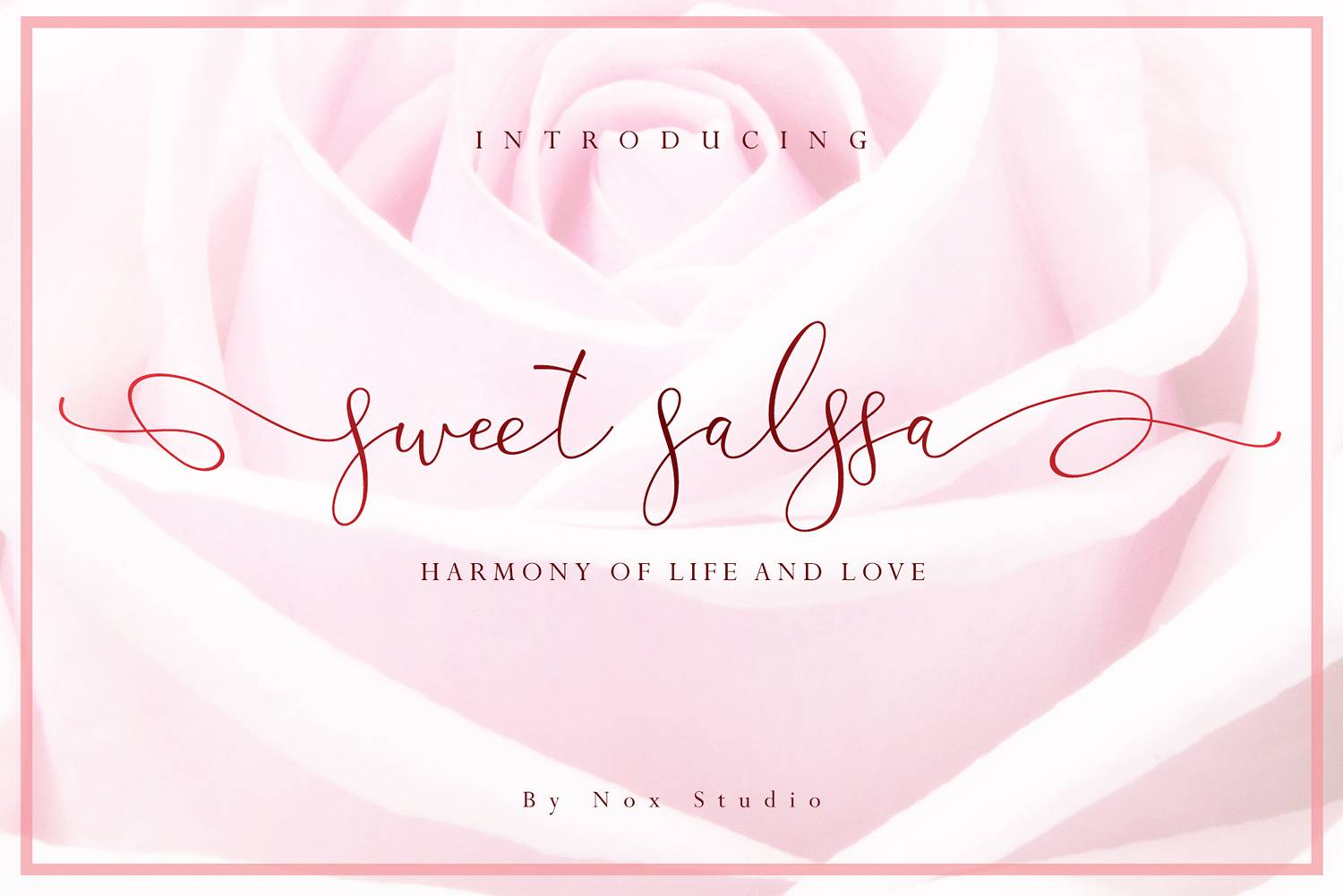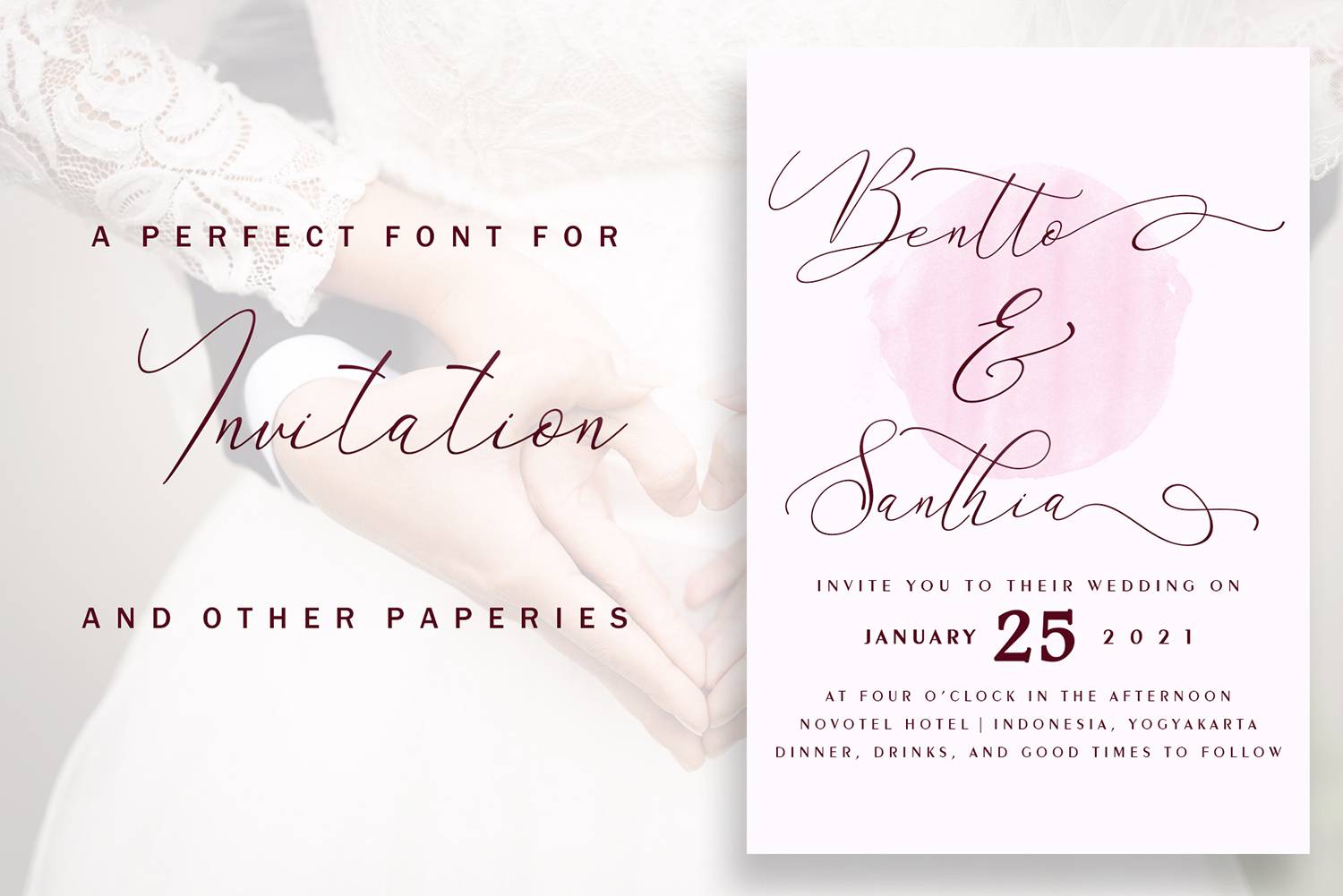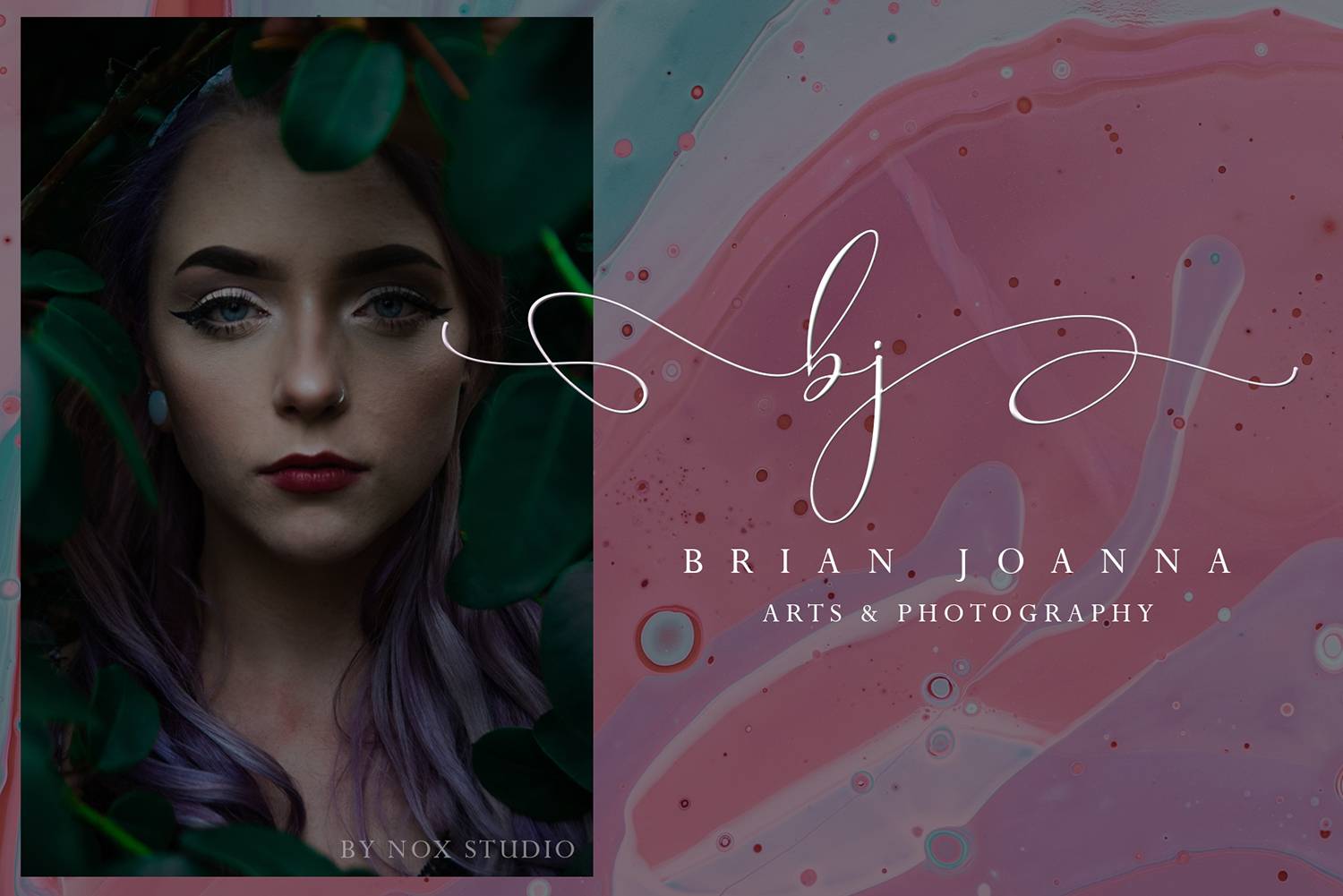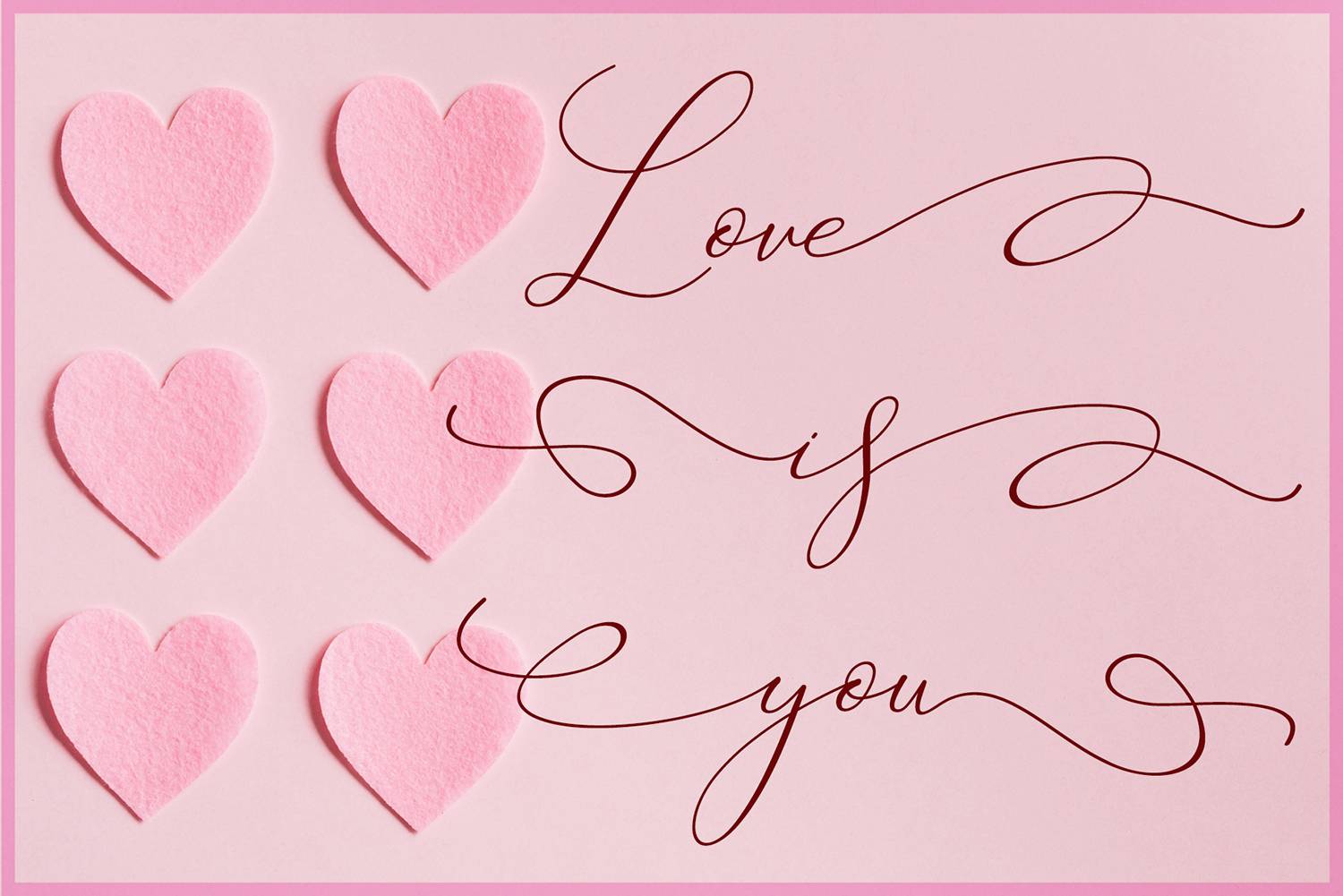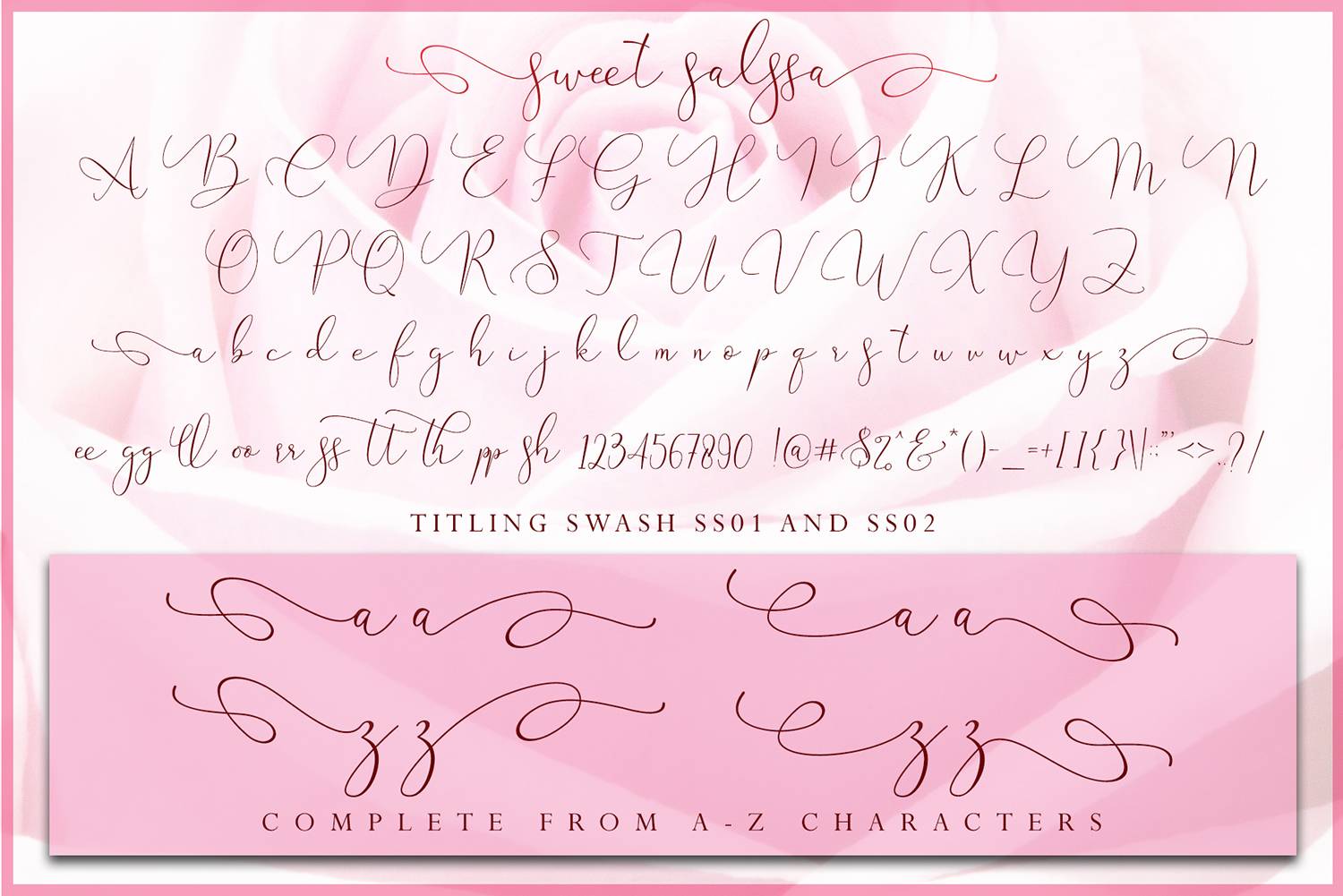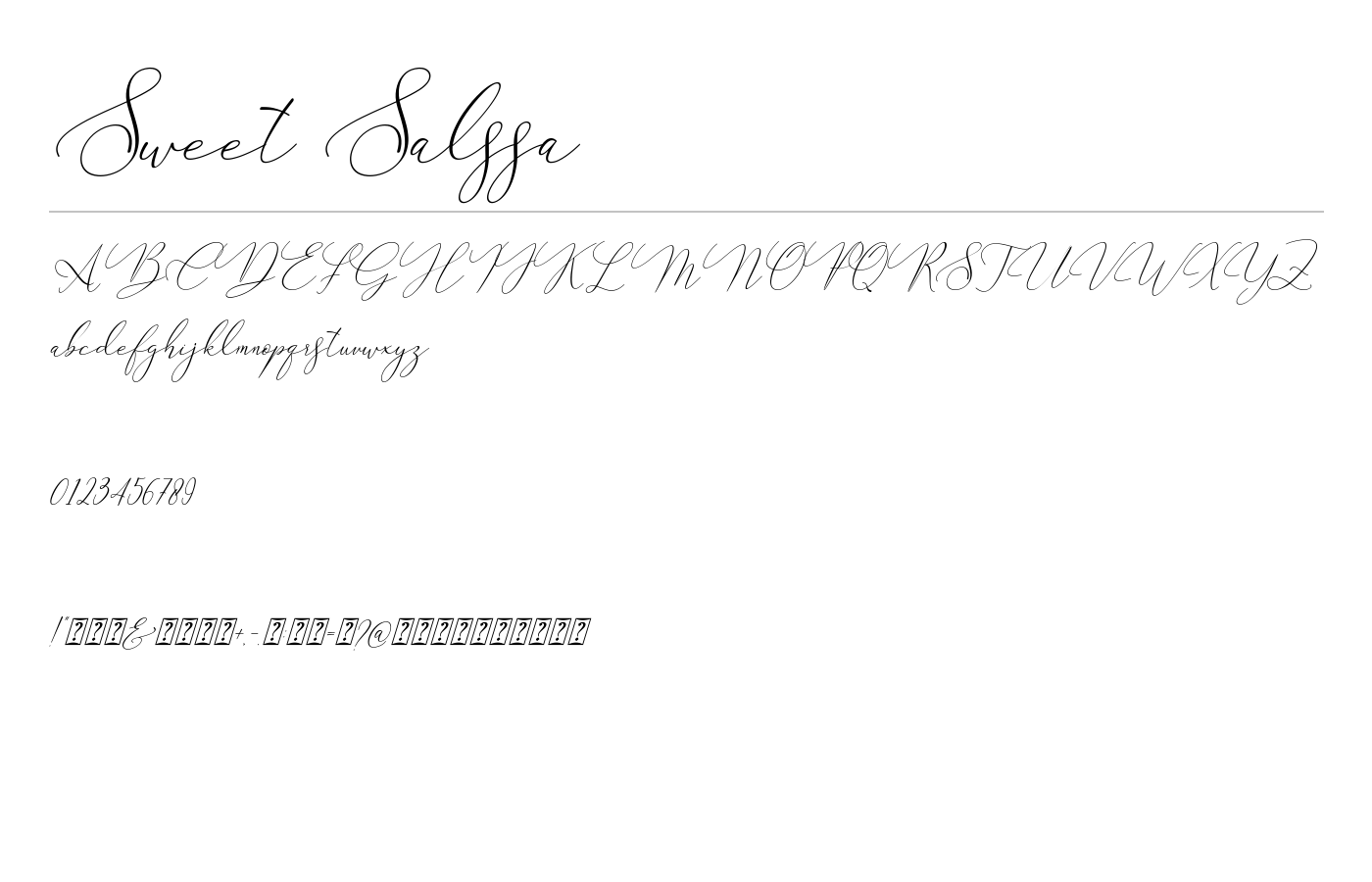
Sweet Salssa is an elegant script font characterized by its delicate, flowing lines and fine strokes, giving it a graceful, handwritten feel. Its thin, ornate letterforms with high contrast and looping ascenders create a refined, romantic atmosphere, perfect for invitations, branding, and decorative uses where a touch of sophistication and charm is desired.
Sweet Salssa Font
About Sweet Salssa Font
| Font family | Sweet Salssa Font |
| Designer | Nox Studio 2021 |